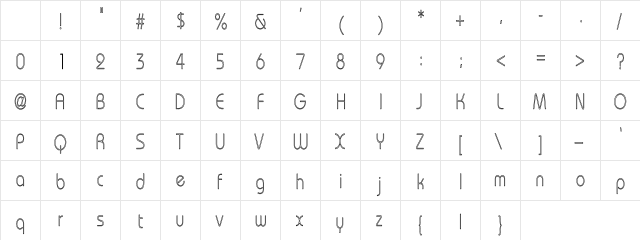
Bauhaus-Light-LHC is a composed and adaptable typeface that performs quietly and consistently across a wide range of design contexts. Its slender proportions lend an understated elegance to any composition.